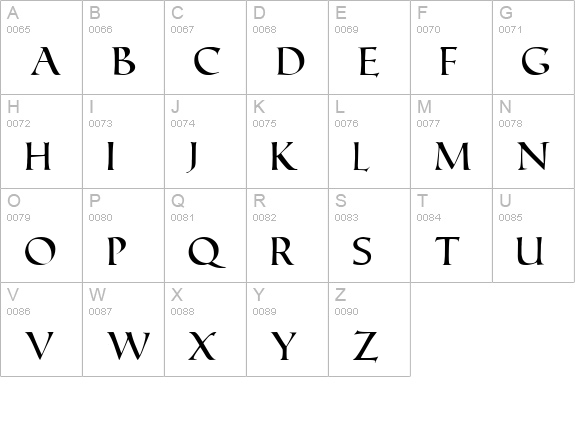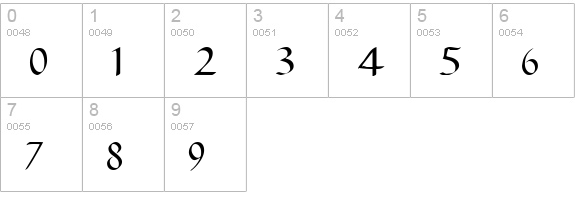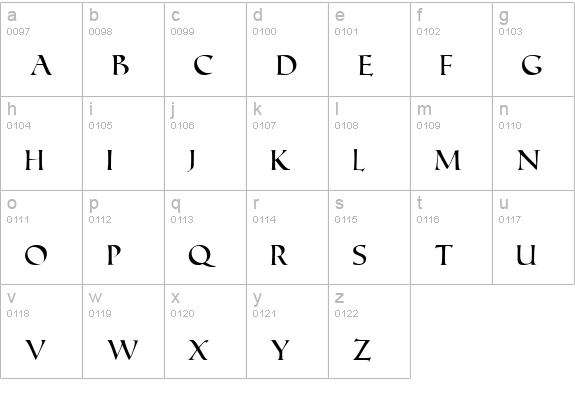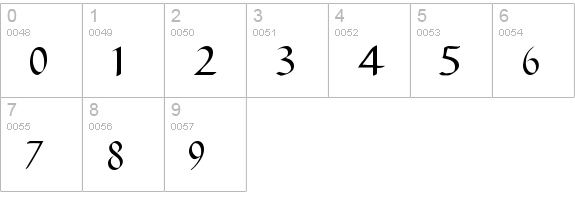
Roman Caps Font Details
Roman Caps font is a classic and elegant typeface that exudes sophistication and timelessness. With its clean lines and bold strokes, this font is perfect for adding a touch of refinement to any design project. The all-caps letters give off a sense of authority and grandeur, making it ideal for headlines, logos, and other prominent text elements. The best part about Roman Caps font is that it is completely free to use. You can easily download this versatile font at FontsMarket.com and start incorporating it into your projects right away. Whether you're designing a poster, creating a logo, or working on a website, Roman Caps font will add a touch of class and style that is sure to impress. Don't miss out on this amazing free font – download it today and elevate your design work to the next level!